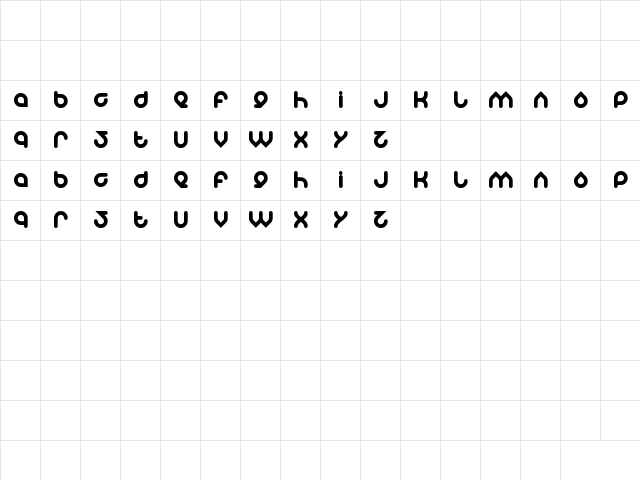
znowwhite Regular
Design Context for znowwhite Typeface
znowwhite is a composed and adaptable typeface that performs quietly and consistently across a wide range of design contexts.